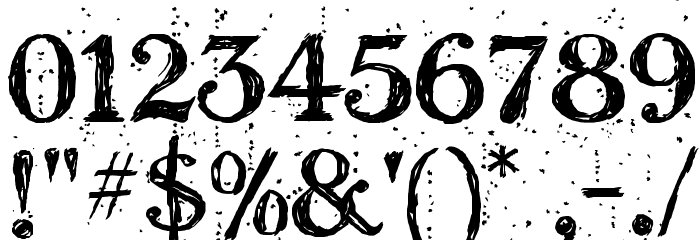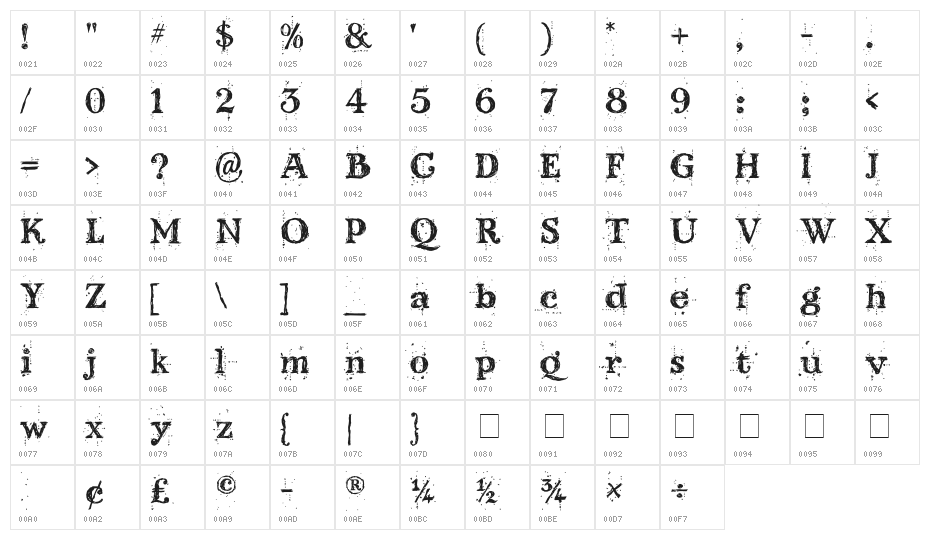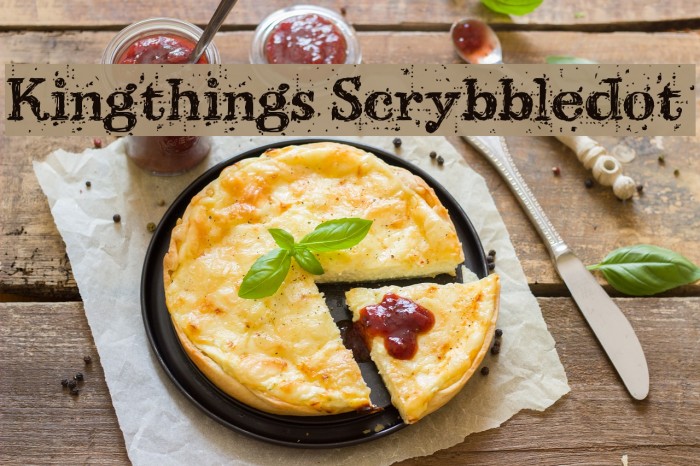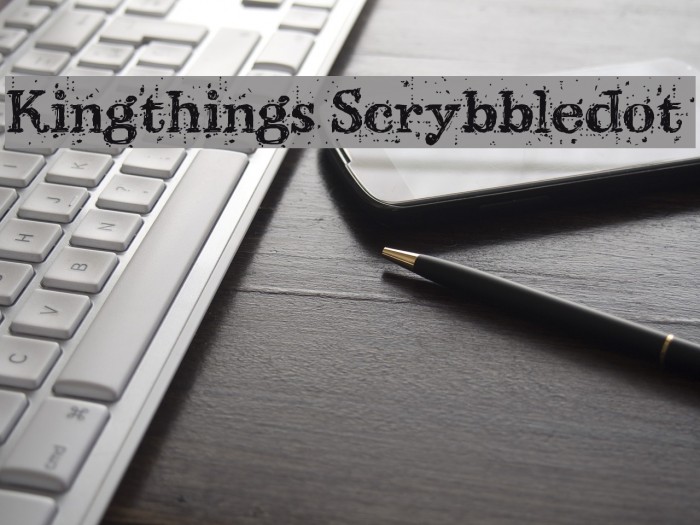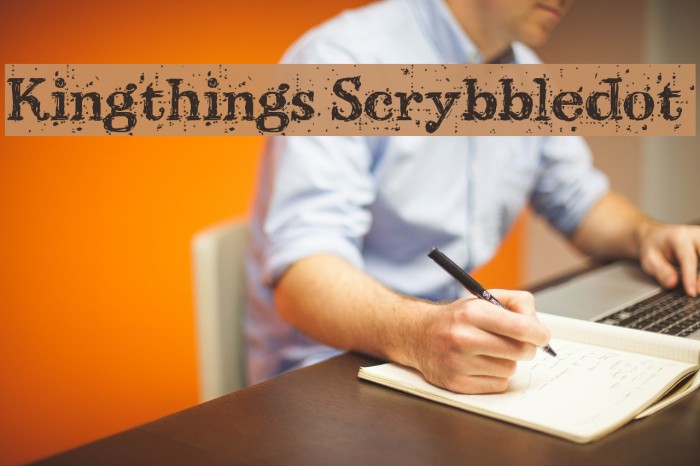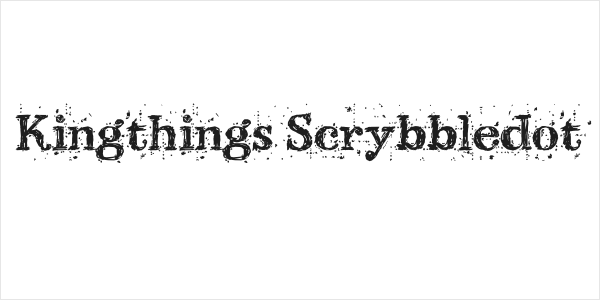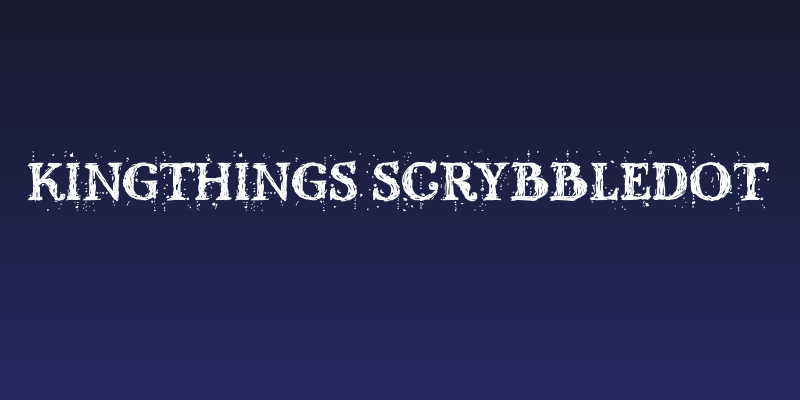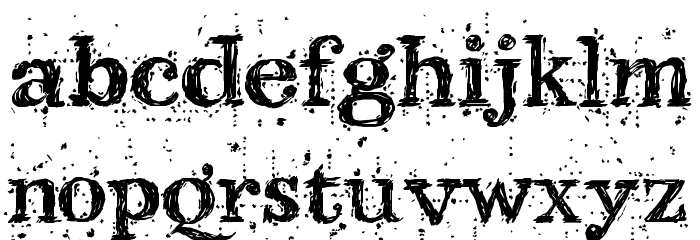
Kingthings Scrybbledot Font
Kingthings Scrybbledot Description
This font features a unique, distressed style that gives it a hand-drawn, textured appearance. The characters are bold and heavily stylized, with a rough, uneven texture that suggests a vintage or grunge aesthetic. Each letter is distinct, with varying levels of distress that add to the overall character of the font. The uppercase and lowercase letters maintain a consistent style, while the numbers and special characters are equally detailed, ensuring a cohesive look across all text. This font is ideal for projects that require a bold, eye-catching design with a touch of artistic flair.
| Proposed Projects | Ideal for posters, album covers, branding, and any design needing a vintage or grunge aesthetic. |